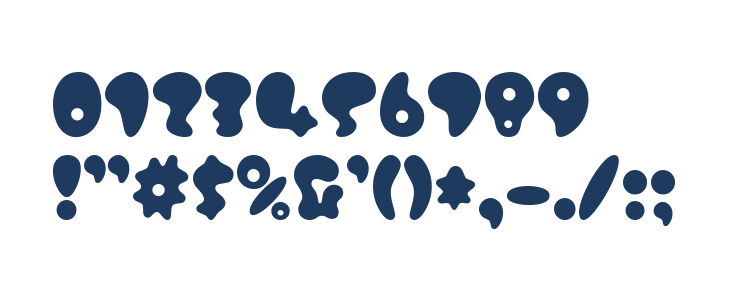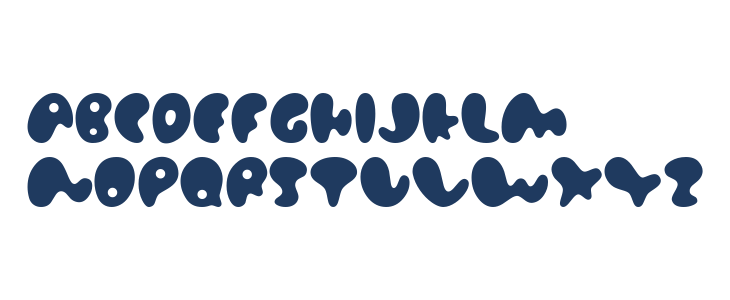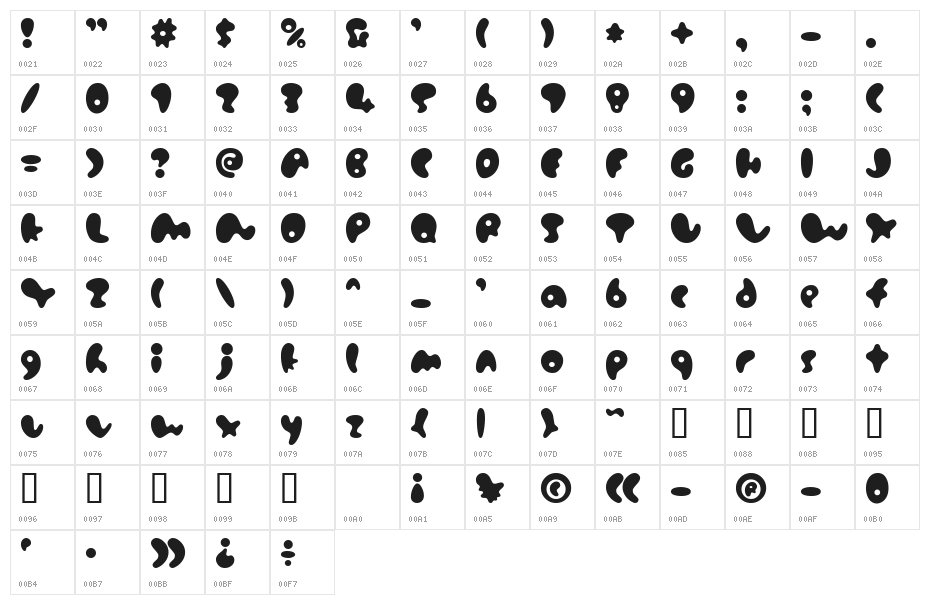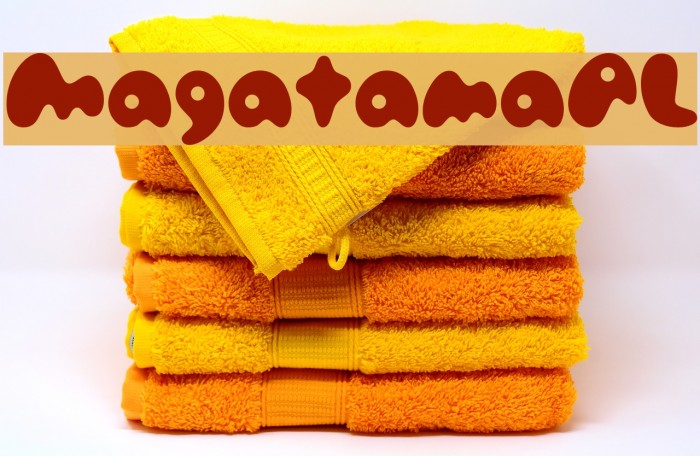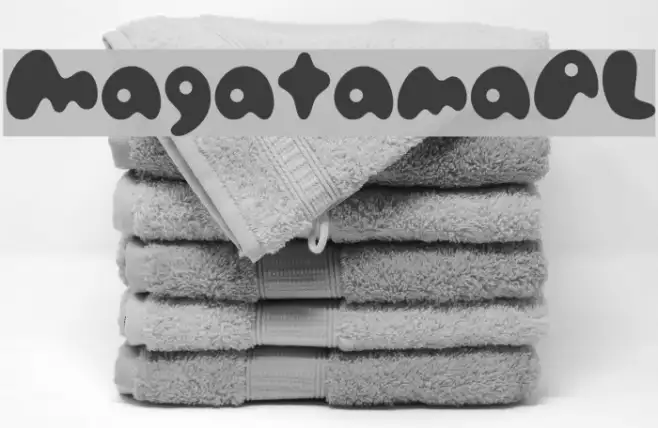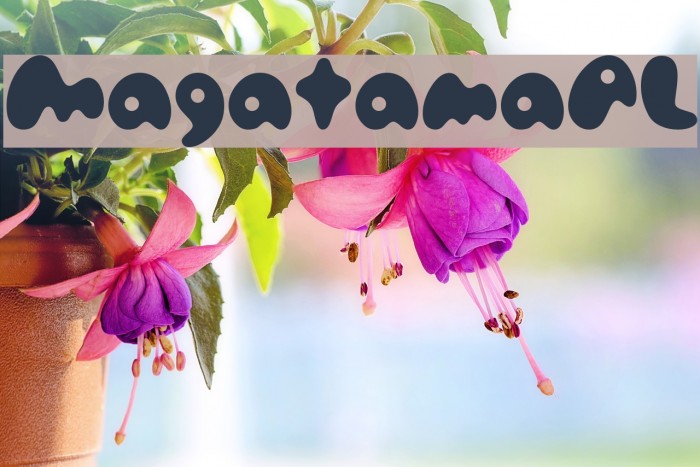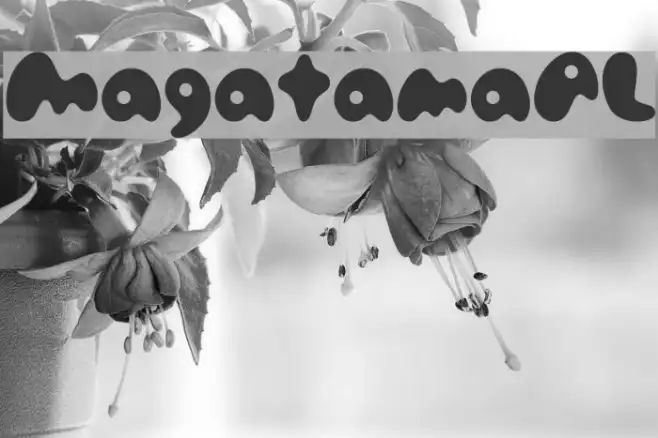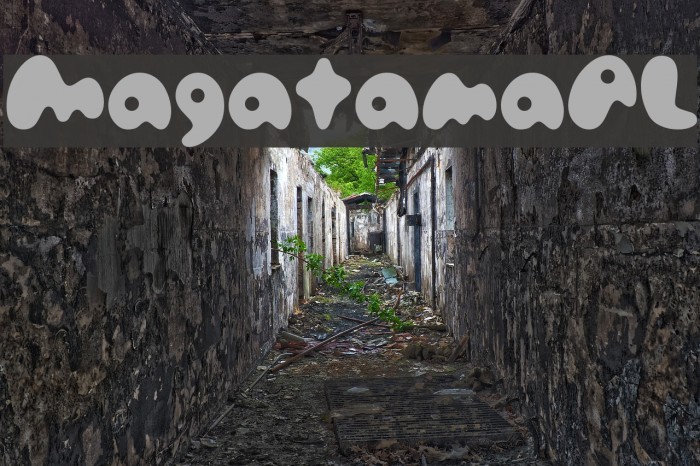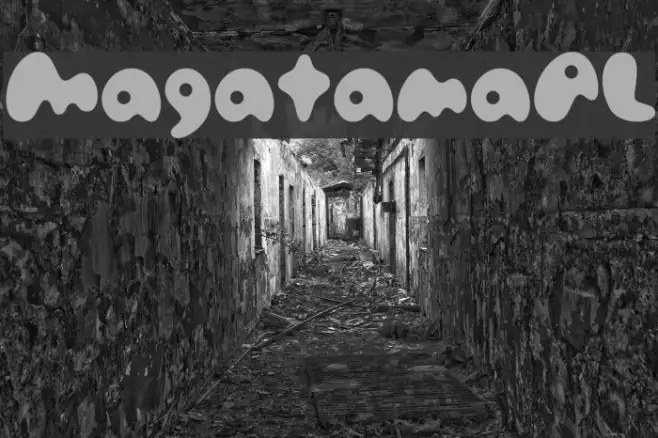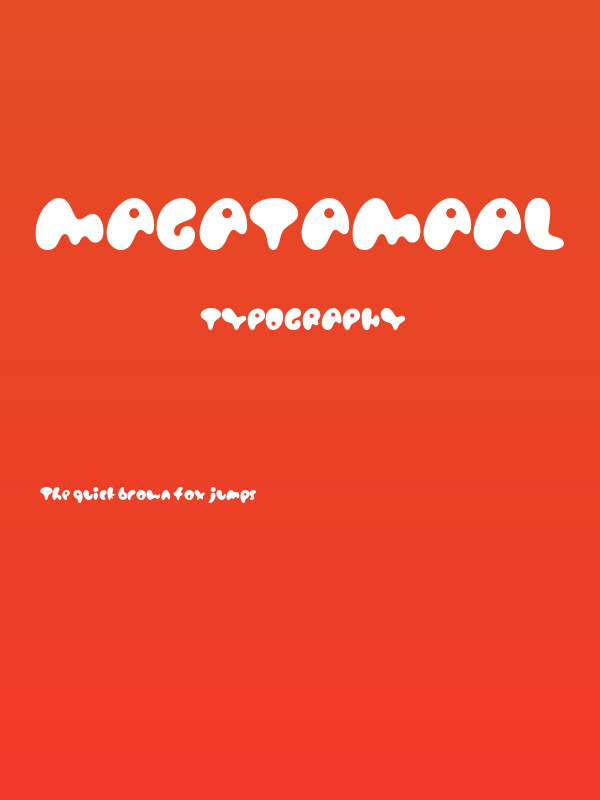
MagatamaAL Font
MagatamaAL Description
This font features a playful and bold design with rounded, organic shapes that resemble droplets or blobs. The characters are heavily stylized, with a consistent thickness throughout, giving it a cartoonish and whimsical appearance. The letters are closely packed, creating a sense of unity and cohesion. The font's unique style makes it stand out, with each character maintaining a distinct yet harmonious look. The numbers and special characters follow the same design principles, ensuring a uniform aesthetic across all glyphs.
Overall StylePlayful, Whimsical
Use CaseLogos, Posters, Children's materials
Proposed ProjectsIdeal for children's books, playful branding, party invitations, or any project requiring a fun and whimsical touch.